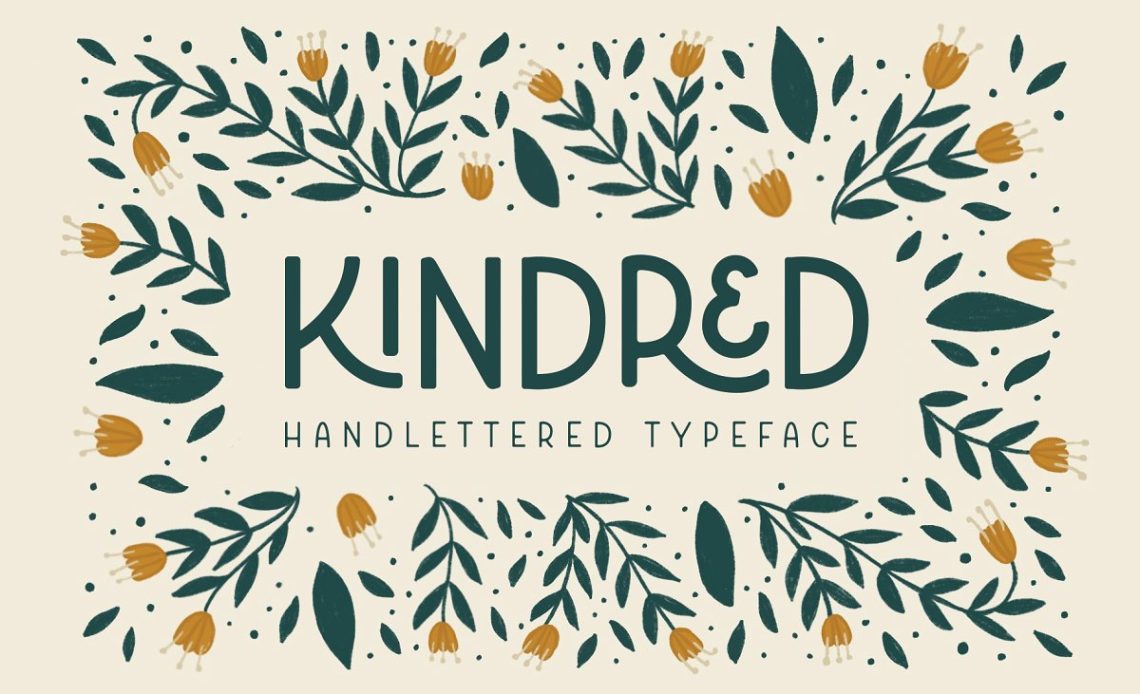
Introducing Kindred - the organic and hand-lettered sans typeface designed to bring a friendly and inviting feel to your projects! Created by the talented Rachel Kick, Kindred takes inspiration from hand lettering art to offer a unique, customizable font that can be used across a variety of branding, social media, and marketing materials.
With 281 glyphs, Kindred offers a wealth of options for customization. From the standard uppercase, numbers, and punctuation to the added alternatives and ligatures, this typeface has everything you need to create a one-of-a-kind look. What's more, the 34 standard ligatures, enabled by default, give a hand-drawn feel that will elevate your design to new heights.
The rounded corners of Kindred further contribute to its organic and friendly feel, adding to the overall sense of approachability that this typeface brings. With over 90 alternatives available, you can easily tailor Kindred to suit the specific needs of your project, adding small details, changing double letters, or adding swashes to fit around surrounding letters.
Kindred also offers six unique styles to choose from, including Light, Regular, Bold, Rounded Light, Rounded Regular, and Rounded Bold. You can mix and match different weights in one design or choose a different style for a truly unique look.
Whether you're a marketer, designer, or creative entrepreneur, Kindred is an excellent choice for your next project. With its friendly, hand-drawn feel and endless customization options, this font is sure to help you stand out from the crowd.